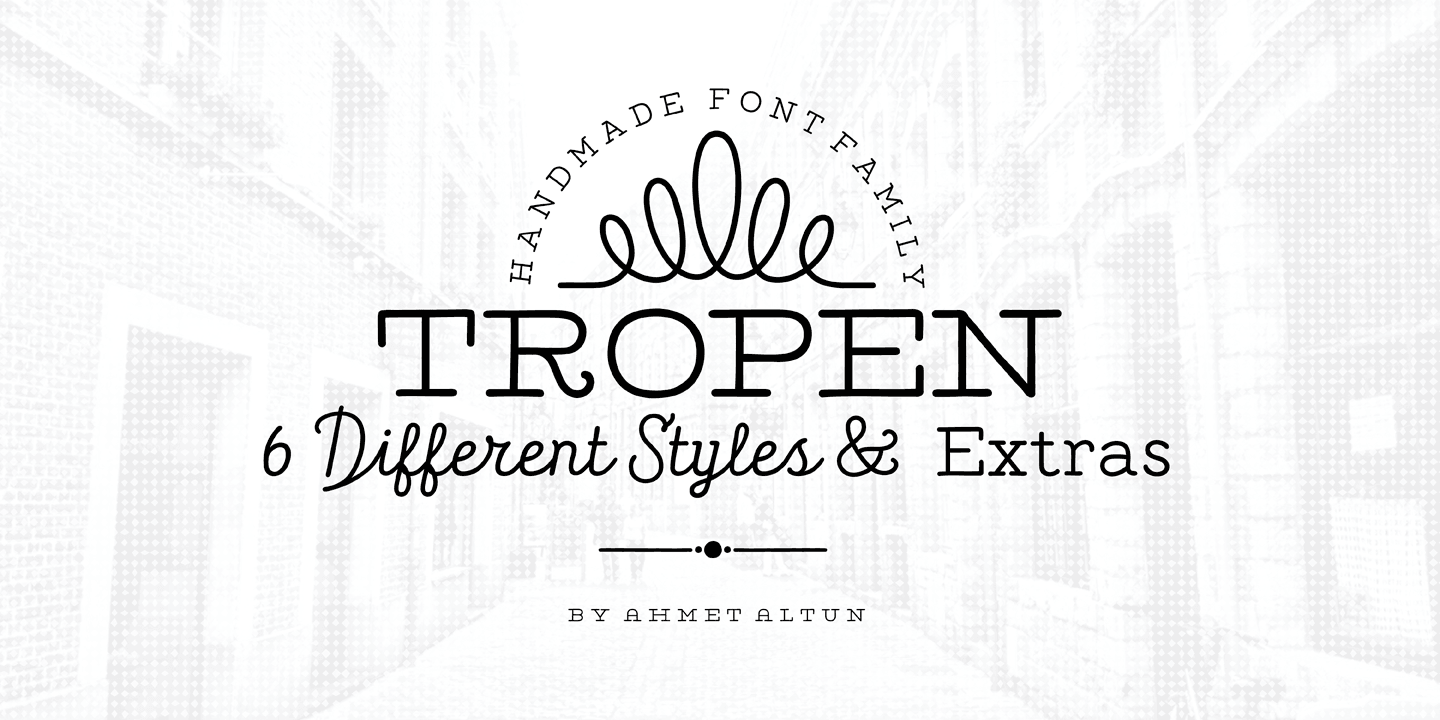
Tropen is a dingbat, hand drawn and script font family. This typeface has seven styles and was published by Ahmet Altun.
Tropen Font Family comes in one weight with six different types of styles, all compatible with each other. All fonts are hand-made. Tropen Extras can be accessed with the standard keyboard codes which makes the use of that font very practical and easy. Tropen Font Family was designed carefully to create elegant works. It would be a perfect choice to design posters, affiches, logos, t-shirt and magazine prints, eye-pleasing typographic designs and more.